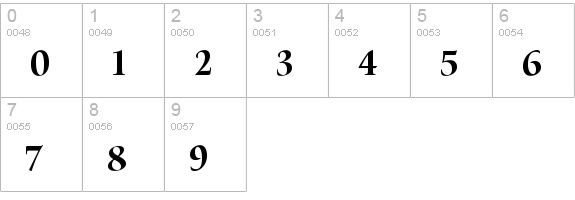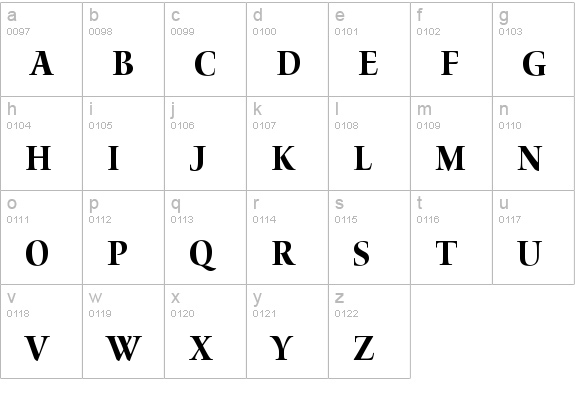
Waters Titling Pro Bold Semicondensed Font Details
Waters Titling Pro Bold Semicondensed is a strong, high-contrast variant in the Waters typeface family \xE2\x80\x94 well suited to headlines, attention-grabbing titles, and strong calls-to-action.
Introducing Waters Titling Pro Bold Semicondensed font, the epitome of elegance and sophistication in the world of typography. With its bold and semi-condensed design, this font demands attention and makes a lasting impression. Crafted with precision and attention to detail, Waters Titling Pro Bold Semicondensed font exudes confidence and professionalism. Its sleek and modern appearance is perfect for any project that requires a touch of sophistication, from high-end branding to editorial design. Featuring clean, sharp lines and perfectly balanced letterforms, Waters Titling Pro Bold Semicondensed font is a versatile choice for both print and digital applications. Whether it's used for headlines, subheadings, or even body text, this font guarantees readability and legibility, ensuring that your message is conveyed with utmost clarity. But what truly sets Waters Titling Pro Bold Semicondensed font apart is its availability as a free download on FontsMarket.com. Yes, you read that right - this incredible font can be yours, free of charge! Simply visit FontsMarket.com and unleash your creativity with this remarkable typeface. So, why wait? Take advantage of this opportunity to elevate your designs and make a statement. Download Waters Titling Pro Bold Semicondensed font today and see the difference it can make in your projects. Don't miss out on the chance to add a touch of elegance and professionalism to your work, all for free!